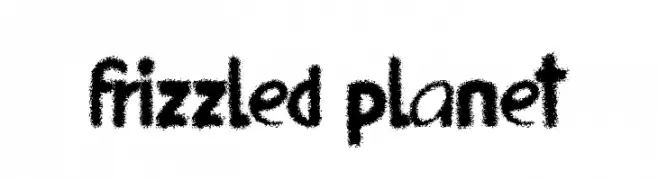
Ornate, decorative uppercase font with festive, vintage motifs.
A bold, distressed font with a grunge, industrial aesthetic.
A playful and bold collection of numbers and symbols in circular shapes.
A bold, playful font with characters enclosed in oval shapes, ideal for decorative use.
A bold, distressed serif font with a vintage, rugged appearance.
A textured, embroidery-inspired font with a bold, handcrafted look.
A bold, gothic Blackletter font with ornate detailing and a playful t-shirt motif.
A playful font with characters inside eight ball designs, perfect for decorative use.
A bold, glitch-effect font with a modern, digital aesthetic.
A modern sans-serif font with clean lines and consistent spacing, though not fully displayed.
A bold, outlined serif font with a classic yet artistic style.
A decorative font with characters on scrolls, offering a vintage and elegant style.
Bold, clear, and highly legible font ideal for public signage.
A playful font with letters in speech bubbles held by cartoon frogs.
A bold, heart-themed font perfect for romantic and playful designs.
A bold, distressed font with a rugged, vintage texture.
A bold, distressed font with a rugged, grunge aesthetic.
A unique blend of Braille and serif typeface for inclusive typography.
A bold, distressed font with a vintage, rugged appearance.